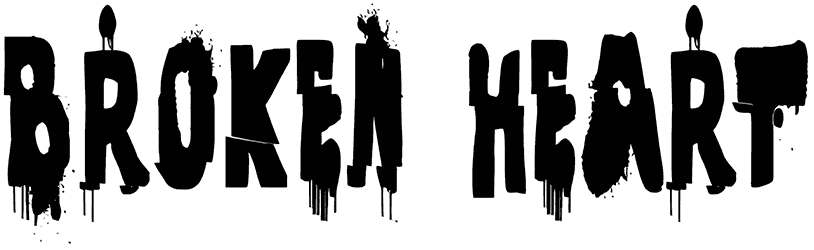
Broken Heart Font
If you end up choosing a distorted font like Broken Heart to better support the meaning of your design, prepare to feel petrified. The whole character map is made of destroyed letters, bleeding and hurt in every way possible.
It’s not just a dripping font but also a spray paint font, embodied through imperfect letters cut in half. That should be enough for Broken Heart to end up on your music covers, escape room posters, websites designed for Halloween, etc.